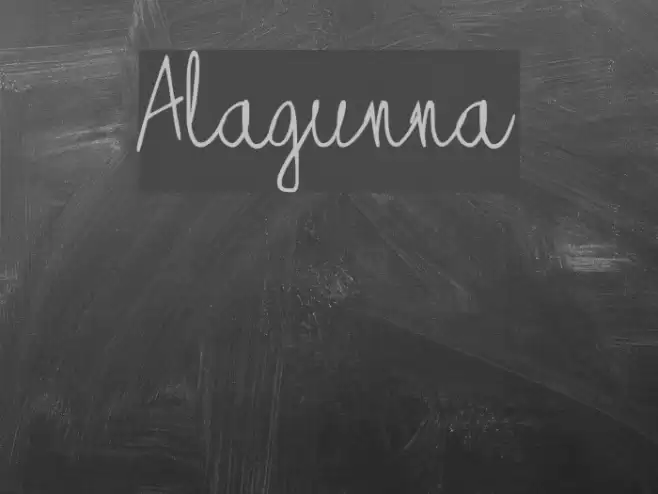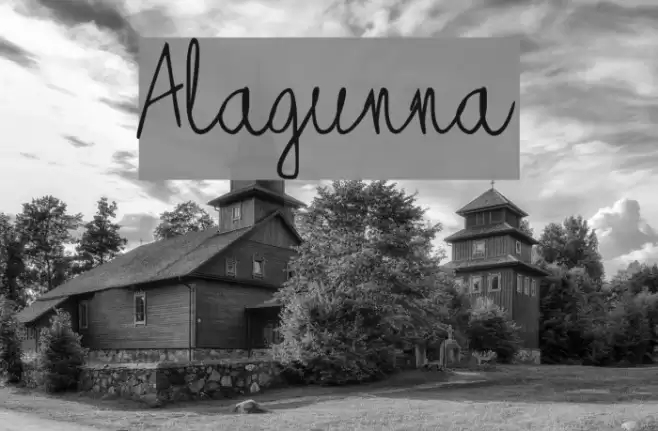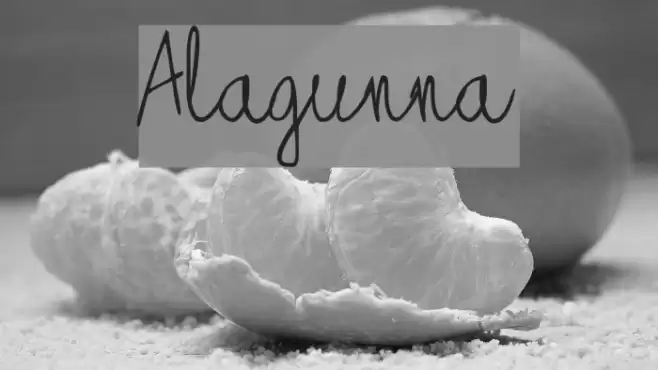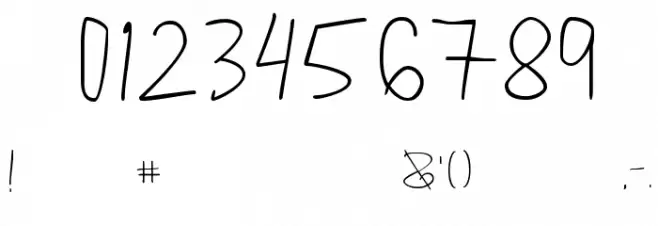
Alagunna Font
Alagunna Description
This font features a playful and casual handwritten style with a mix of uppercase and lowercase letters that exhibit a slightly irregular and whimsical appearance. The uppercase letters are tall and narrow, with a slight slant that adds to the informal feel. The lowercase letters are more fluid and connected, resembling a cursive script. The numbers maintain the playful theme with a consistent stroke width that complements the letters. Special characters are included, maintaining the same casual and hand-drawn aesthetic. Overall, this font conveys a sense of approachability and creativity, making it suitable for projects that require a personal touch.
A playful, casual handwritten font with a whimsical and informal style from Handwritten fonts.
- Proposed Projects: Ideal for greeting cards, invitations, personal branding, and creative projects that require a friendly and approachable look.
- Overall Style: Casual, Playful
- Use Case: Headlines, Logos, Invitations